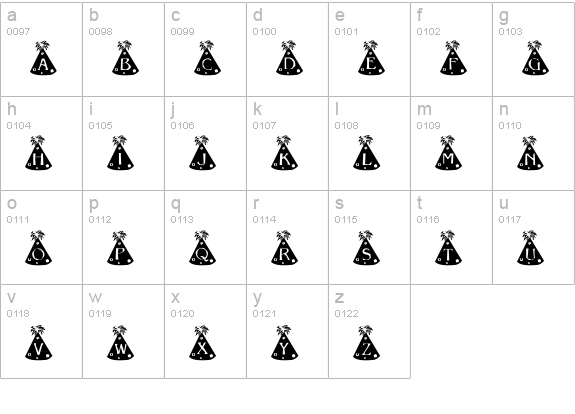
Introducing Party Hats, the font that brings a touch of whimsy and celebration to any project. With its playful and lively design, Party Hats is perfect for adding a festive flair to invitations, cards, posters, and more. Its charming and unique letterforms are reminiscent of the joyous spirit of a lively party, making it an ideal choice for occasions such as birthdays, anniversaries, and other special events. But what makes Party Hats even more exciting is that it is available for free! Yes, you read that right. This delightful font can be yours to download and use at no cost. Simply head over to FontsMarket.com, where Party Hats is freely available for download. Whether you're designing for a birthday bash, a New Year's Eve celebration, or simply want to inject some fun into your typography, Party Hats is the ultimate choice. Its versatility and playful nature allow you to create eye-catching designs that will make your projects stand out from the crowd. With Party Hats, every word becomes a celebration. So, go ahead and grab this free font today from FontsMarket.com and let the festivities begin!